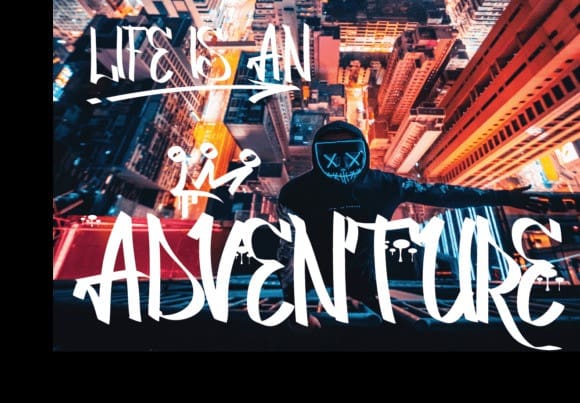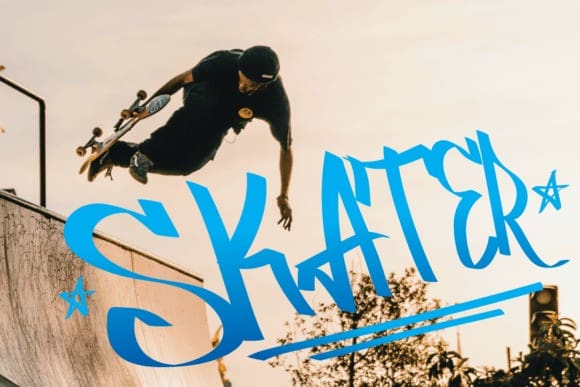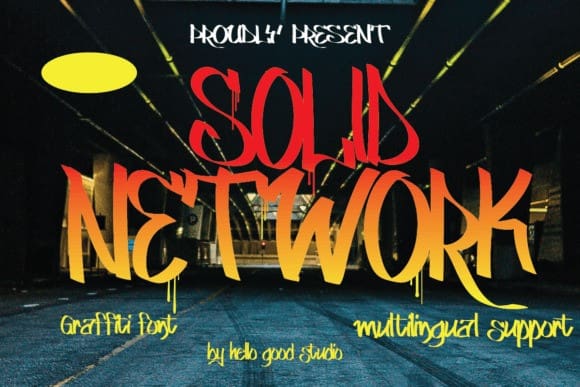
Solid Network Font
Solid Network Font is an amazing graffiti themed display font. This font is a graffiti font accompanied by unique and fresh ornaments, so it is ideal for adding an adventurous and authentic feel to your next design idea! Make sure this font exists for your device collection.